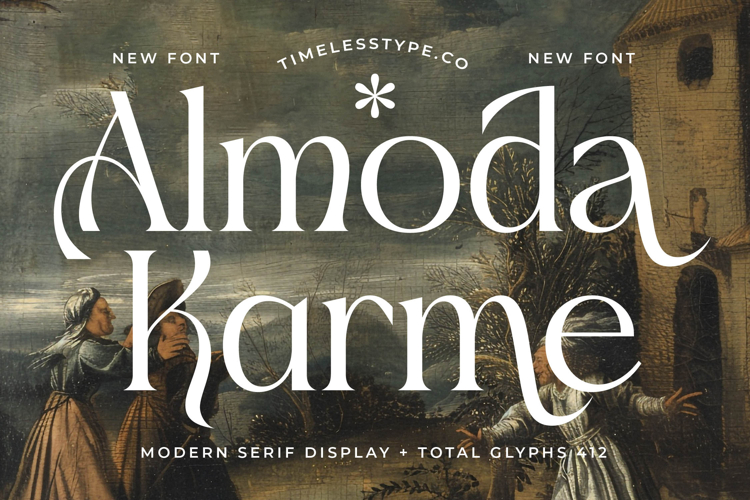
Almoda Karme - Modern Serif Display
Discover the transformative power of elegant typography with Font Almoda Karme Serif Display. This exquisite display serif font immediately commands attention, blending modern elegance with a touch of timeless sophistication. Its striking high-contrast strokes and graceful curves are meticulously crafted to provide an unforgettable visual experience, perfect for designs that demand a premium aesthetic.
Unleash unparalleled design sophistication with every character. Font Almoda Karme Serif Display features a harmonious blend of refined serifs and captivating alternates, offering designers the tools to create truly distinctive layouts. Its versatile charm ensures that your message is conveyed with both authority and artistry, making it an indispensable asset for a wide range of creative projects where impactful typography is paramount.
Expand your global presence with confidence and style. With its extensive multilingual support, Font Almoda Karme Serif Display adapts seamlessly across global markets, making it incredibly versatile for international projects. This comprehensive language coverage ensures that your brand’s voice resonates authentically with diverse audiences, maintaining its luxurious appeal no matter the language.
Elevate your brand narrative to new heights. Font Almoda Karme Serif Display is perfectly suited for luxury branding, high-end packaging, sophisticated editorial design, impactful headlines, and exclusive invitations. It imbues every application with a sense of premium quality, exclusivity, and refined taste, ensuring your visual communication always stands out with remarkable distinction.